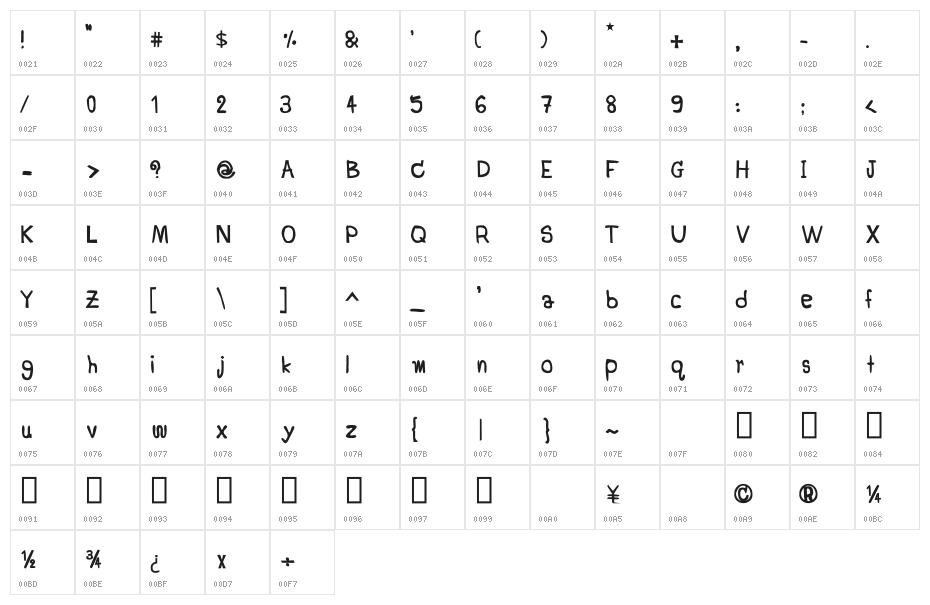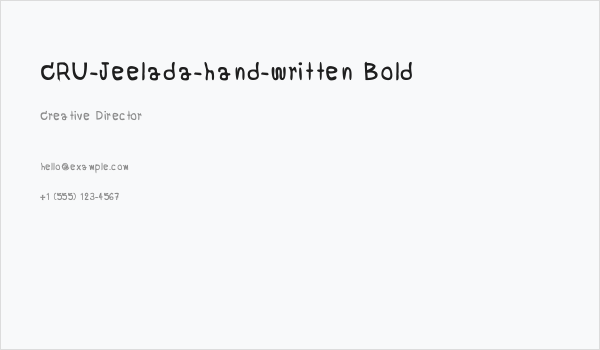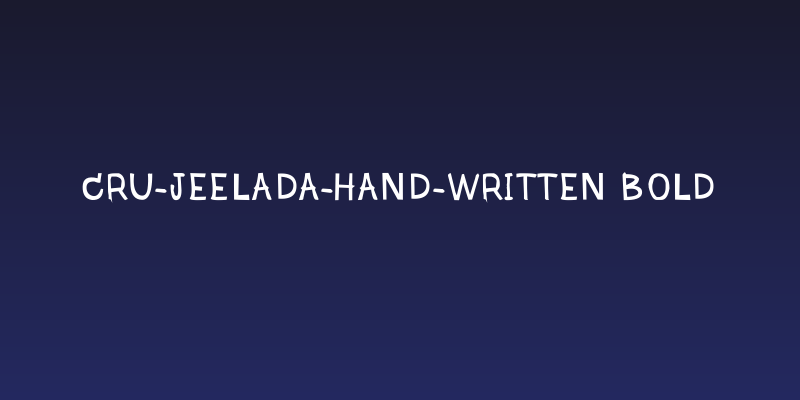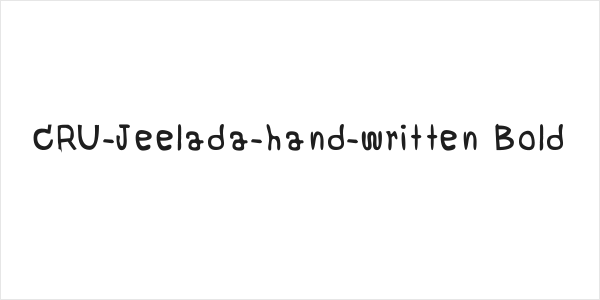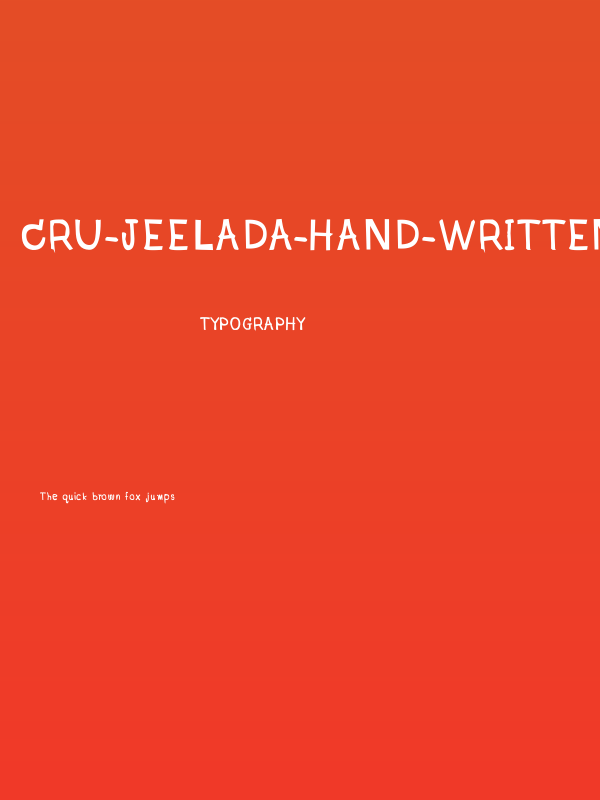
CRU-Jeelada-hand-written Bold Font
CRU-Jeelada-hand-written Bold Description
This font features a playful and casual handwritten style, characterized by its bold and slightly irregular strokes. The letters have a whimsical, organic feel, with varying heights and widths that add to its charm. The uppercase letters are bold and prominent, while the lowercase letters maintain a consistent flow, enhancing readability. The numbers and special characters follow the same playful style, making them suitable for informal and creative projects. The overall design exudes a sense of fun and creativity, making it ideal for projects that require a personal touch.
| Proposed Projects | Ideal for greeting cards, children's books, playful branding, and creative posters. |